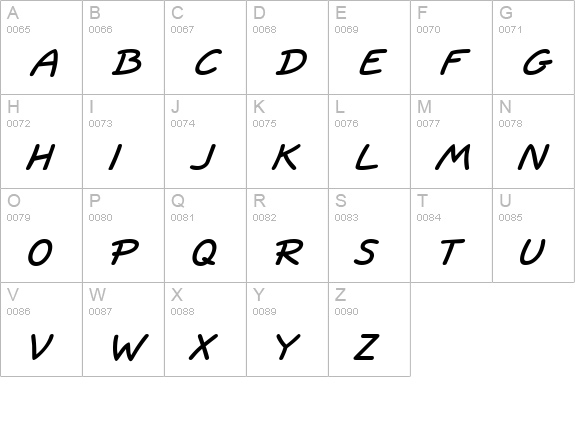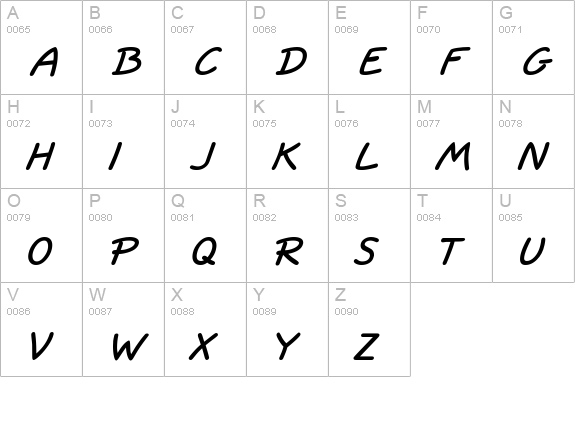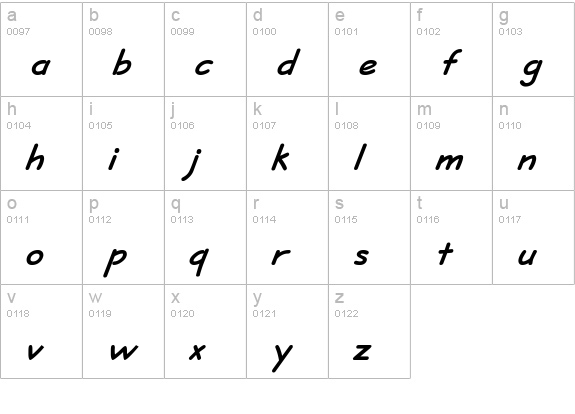
Introducing the stunning and sophisticated Short Hand BoldItalic font, a true masterpiece in the realm of typography. This font combines the elegance of bold and italic styles, creating a unique and visually striking display that is sure to captivate your audience. Short Hand BoldItalic exudes a sense of modernity and confidence, making it the perfect choice for a wide range of design projects. Whether you're creating eye-catching logos, attention-grabbing headlines, or stylish branding materials, this font will effortlessly elevate your creations to new heights. What sets Short Hand BoldItalic apart is not only its impeccable design, but also the fact that it is freely available to download at FontsMarket.com. This means that you can enjoy the benefits of this exceptional font without any cost, making it an absolute must-have for designers on a budget. With its clean lines, sharp angles, and bold strokes, Short Hand BoldItalic commands attention and leaves a lasting impression. It is versatile enough to be used in a variety of design styles, from sleek and modern to bold and edgy. Its versatility is only matched by its legibility, ensuring that your message will always be conveyed with clarity and impact. Don't miss out on the opportunity to enhance your design projects with the finesse of Short Hand BoldItalic. Visit FontsMarket.com today and experience the freedom of having this remarkable font at your fingertips. Download it now and let your creativity soar to new heights with this exceptional and freely available font.